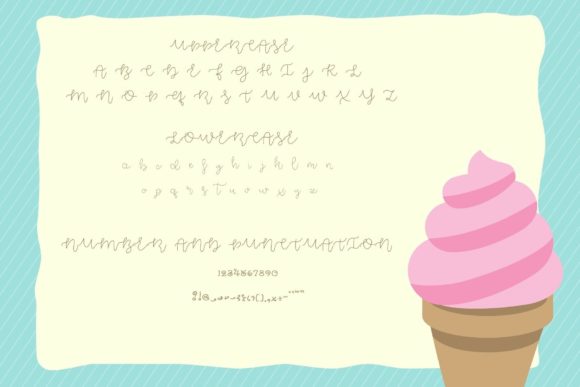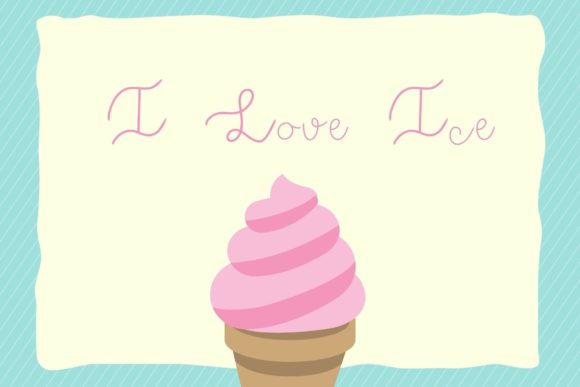
Ice Cream Font
db-ku.com - Script & Handwritten -- Ice Cream is a whimsical and chic handwritten font. It is perfect for any branding project such as logos, t-shirt printing, creative products, and more.